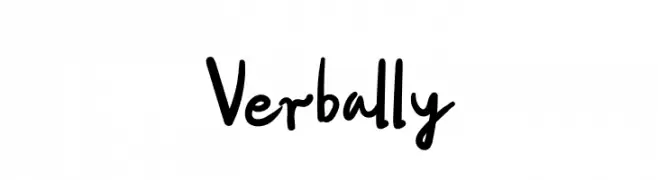
A bold, gothic-inspired font with sharp, angular lines and intricate detailing.
A modern, geometric font with a sleek, futuristic design.
A bold, futuristic font with geometric and modern elements.
A bold, geometric font with a strong outlined style, perfect for impactful designs.
A bold, outlined font with a strong, three-dimensional appearance.
A bold, condensed font with high contrast and geometric design.
A bold, geometric font with a condensed and modern design.
A bold, geometric font with thick strokes and tight spacing.
A bold, blocky font with uniform width and tight spacing.
A playful, handwritten font with smooth, flowing lines and a casual vibe.